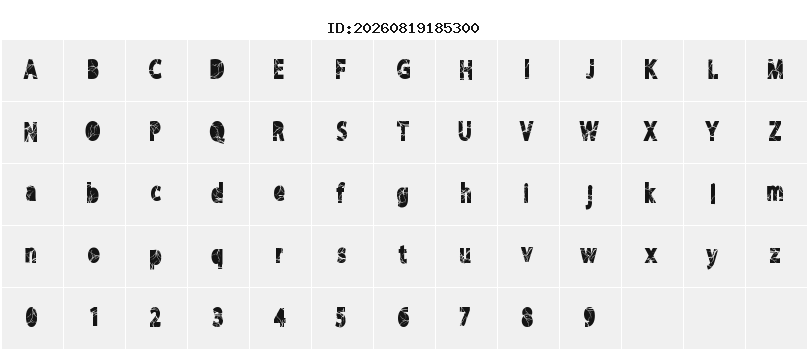
Shockvetica Preview
• Font Name: Shockvetica
• Designer: Max Infeld
• Manufacturer: Xerographer Fonts
• Description: This font was made Xerographer Studios Chico,CA not helvetica
About Shockvetica.ttf
Shockvetica.ttf is a modern, elegant sans-serif font designed for ultimate readability and visual harmony. Perfect for branding, headlines, web design, and print materials.